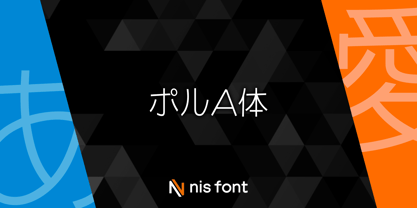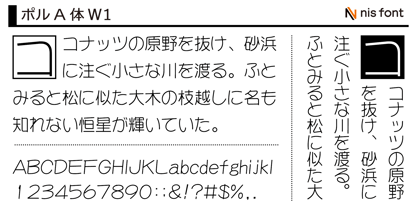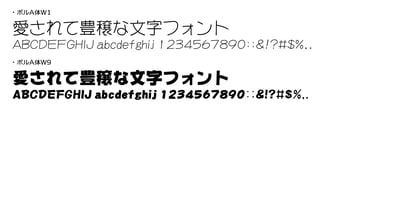
OT-NIS_A
This is a POP typeface developed from years of experience creating promotional materials for major department stores. The design concept focuses on being bold, approachable, and capable of delivering refined advertising expressions. The character set includes kana, kanji, and symbols from JIS Level 1, as well as 94 selected kanji from JIS Level 2. Note: This typeface supports the JIS2004 character set.